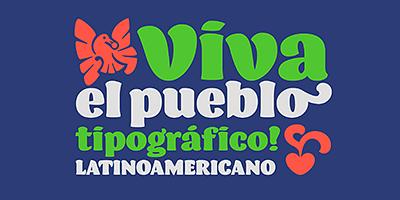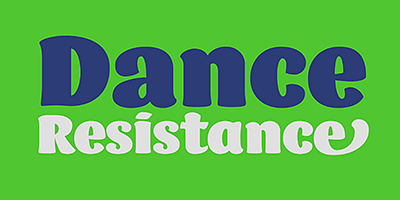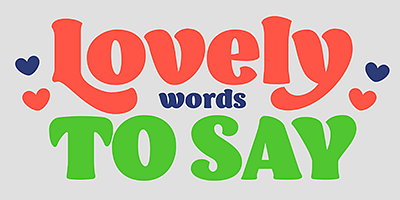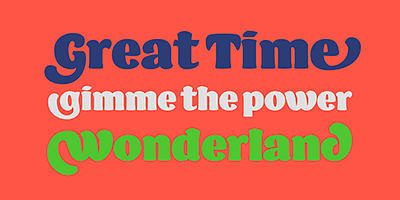
Barricada is a loud-voiced typeface with small counters that gives an interesting strong weight. Moreover, it has a solid structure providing strength. Its curved serifs and swashes give a touch of softness and make the letters a little playful. This is the right option to set a fresh and solid text.